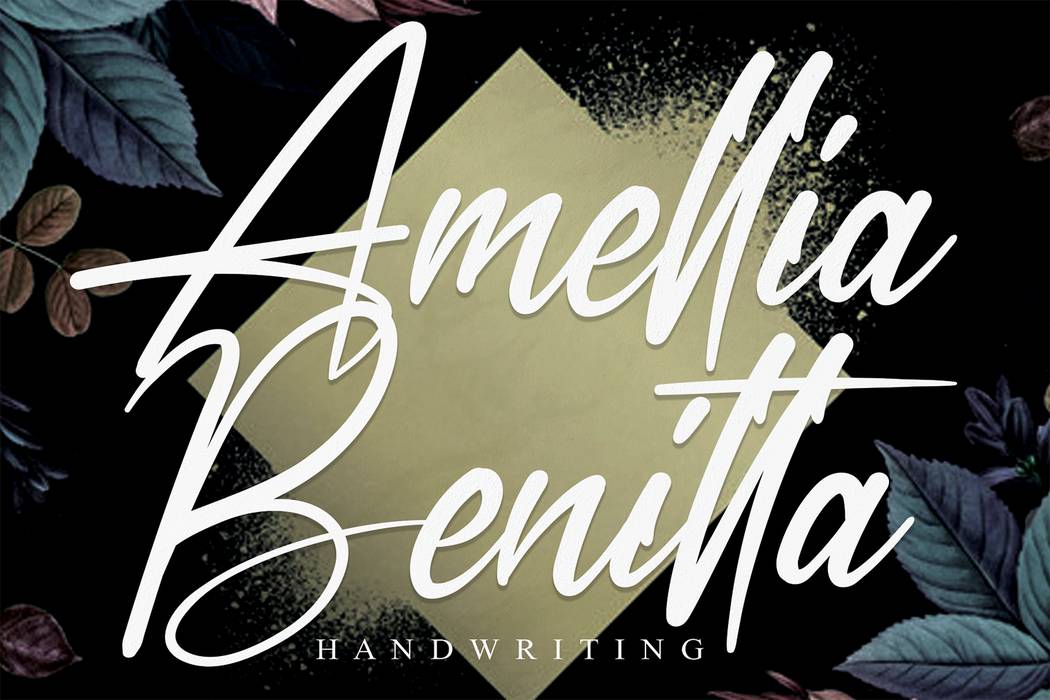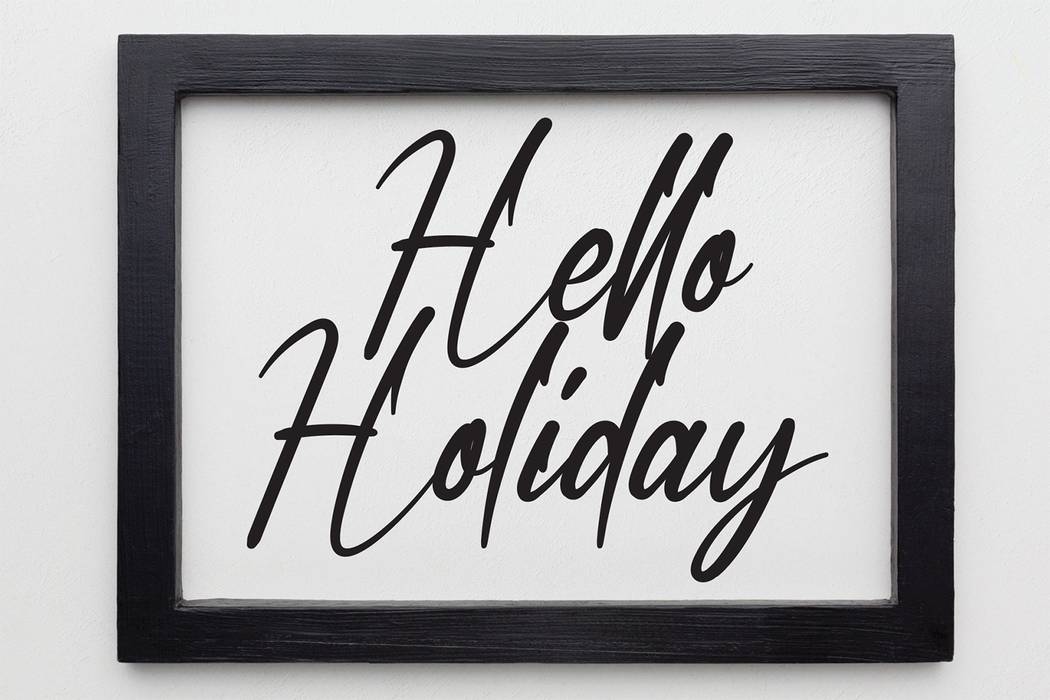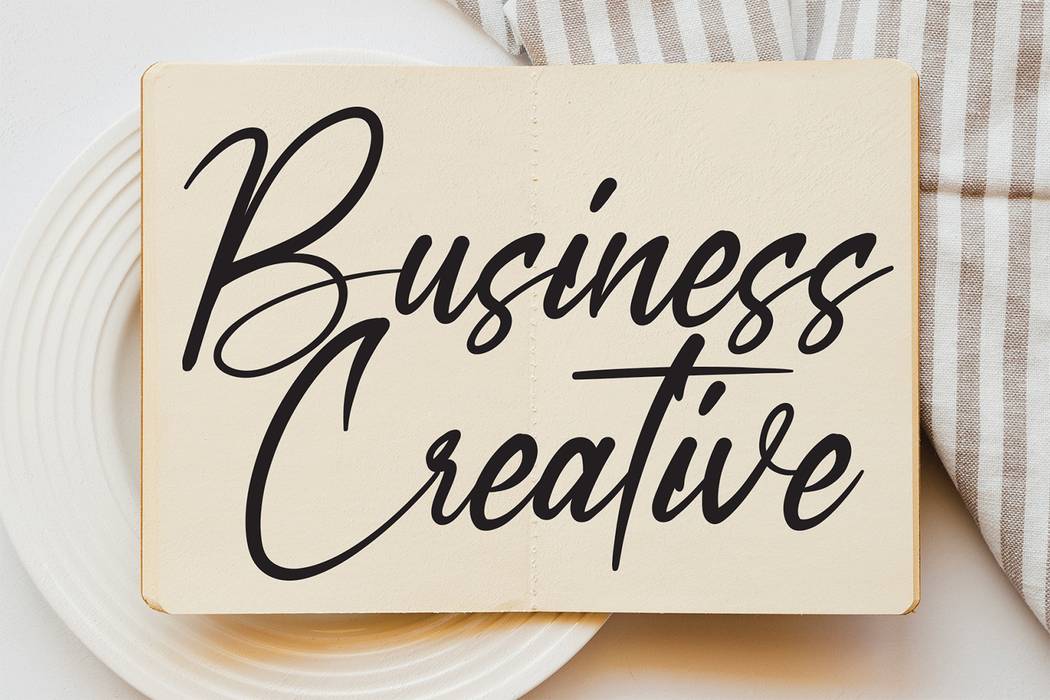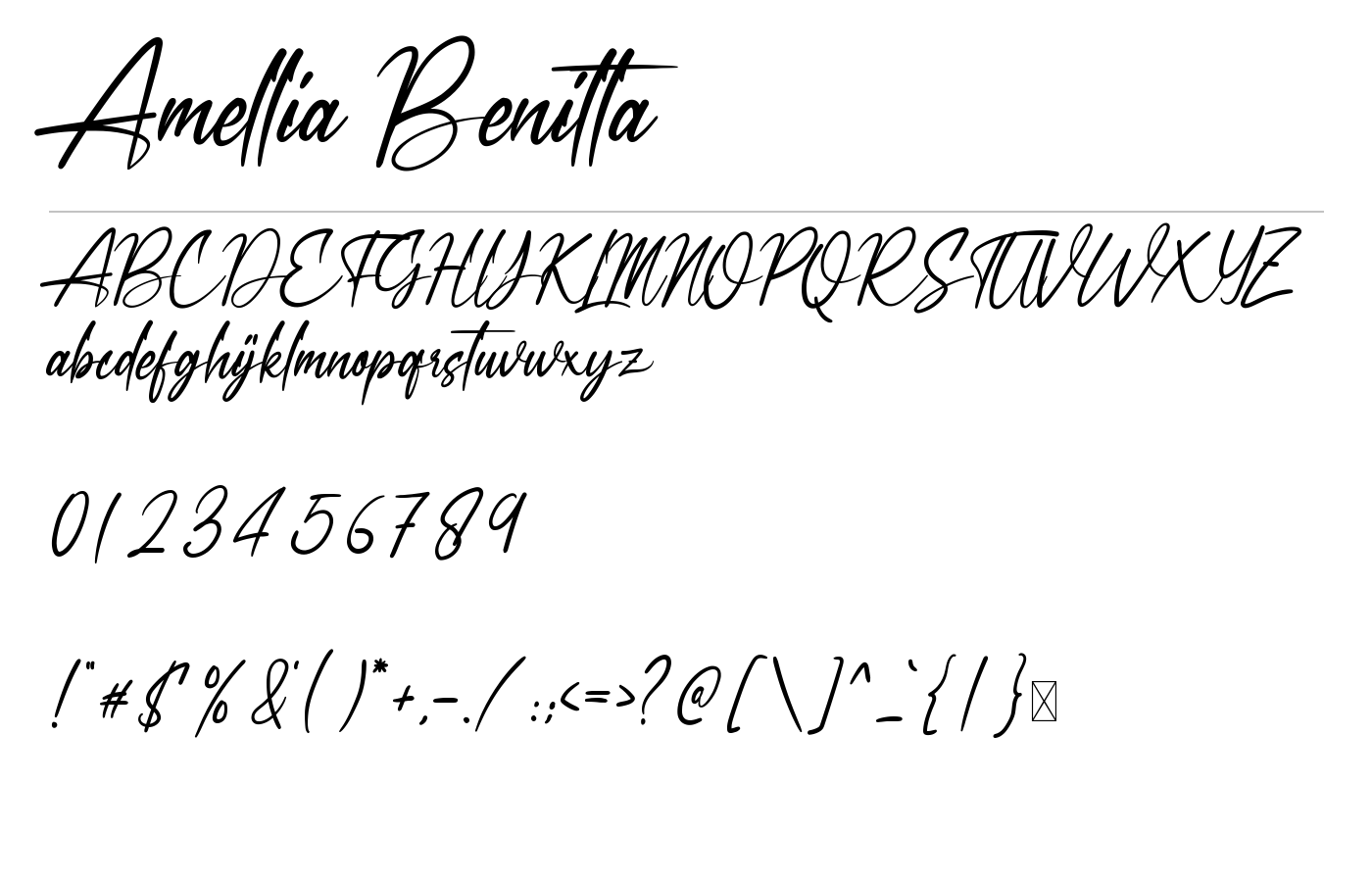
Amellia Benitta is a stylish script font that combines elegant, fluid strokes with a light and airy feel. Its tall, slender letterforms and natural handwriting style give it a modern and sophisticated personality, making it perfect for branding, invitations, and creative projects where a personal yet polished touch is needed. This font works well in both headlines and logos, adding a sense of grace and contemporary charm.
Amellia Benitta Font
About Amellia Benitta Font